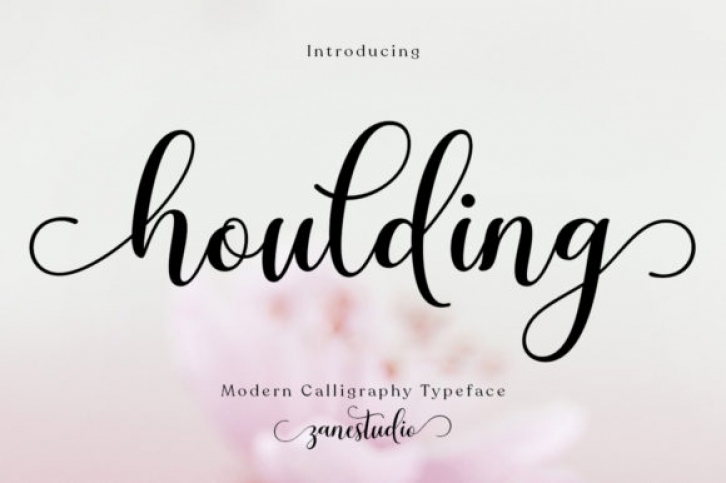
Houlding is a romantic and graceful script font. It looks ravishing on a variety of designs requiring a personalized style, such as wedding invitations, thank you cards, weddings, greeting cards, logos and so on. This font is PUA encoded which means you can access all of the glyphs and swashes with ease!